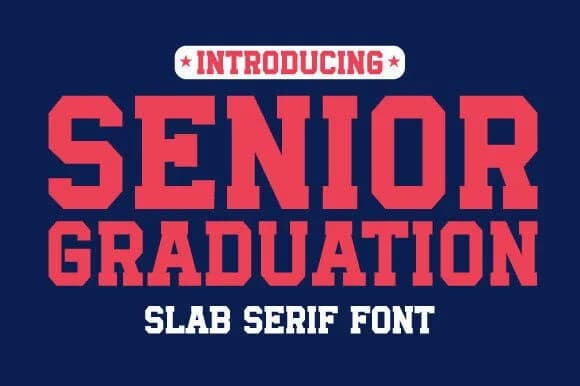
1 / 6About Collegegraduation Font
Picture yourself engraving a championship trophy with bold institutional pride or laying out a varsity jacket that announces athletic tradition loud and clear. Collegegraduation, a slab serif typeface from Riya Studio, captures that authentic college sports energy and delivers it with unwavering structural certainty. Built with hefty, geometric letterforms, this font stamps visual impact on any design that demands attention without compromise or decorative fuss.
This typeface earns its place on varsity letter jackets where craft and athletic pride align with real purpose. It performs equally well anchoring team roster posters, championship event signage, and sports merchandise packaging such as branded gym apparel labels and athletic department displays. The bold slab serif construction wields immediate visual authority while maintaining readability across different contexts and sizes. Each letterform holds crisp legibility regardless of scale, from large stadium banners down to smaller label and apparel applications. The traditional collegiate aesthetic registers with unmistakable clarity while remaining practical and grounded in real-world production use.
Collegegraduation delivers maximum impact at display sizes where its geometric structure can fully breathe and command the entire visual space. Grab the font on Creative Fabrica and anchor your next athletic or school-spirit project with that confident varsity attitude.
Collegegraduation Font is a slab serif font that shines as a display or heading face. Pair it with a clean sans-serif or serif font for body text β the contrast creates a clear hierarchy while the two styles stay balanced and easy to read.
Collegegraduation Font
by Riya Studio